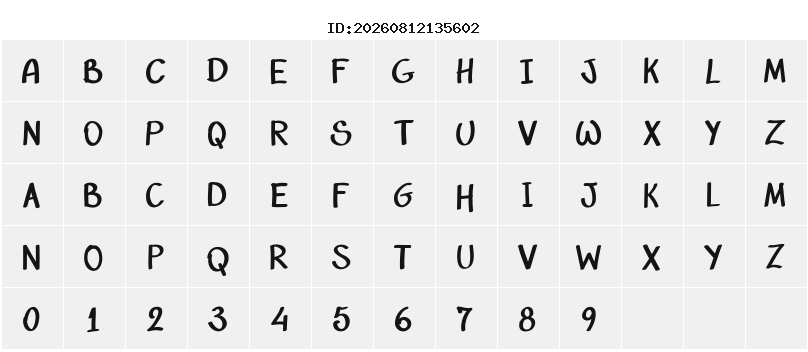
Rizzetto Script Preview
• Font Name: Rizzetto Script
• Full Font Name: Rizzetto Script
About Rizzetto Script.ttf
Rizzetto Script.ttf is a modern, elegant sans-serif font designed for ultimate readability and visual harmony. Perfect for branding, headlines, web design, and print materials.